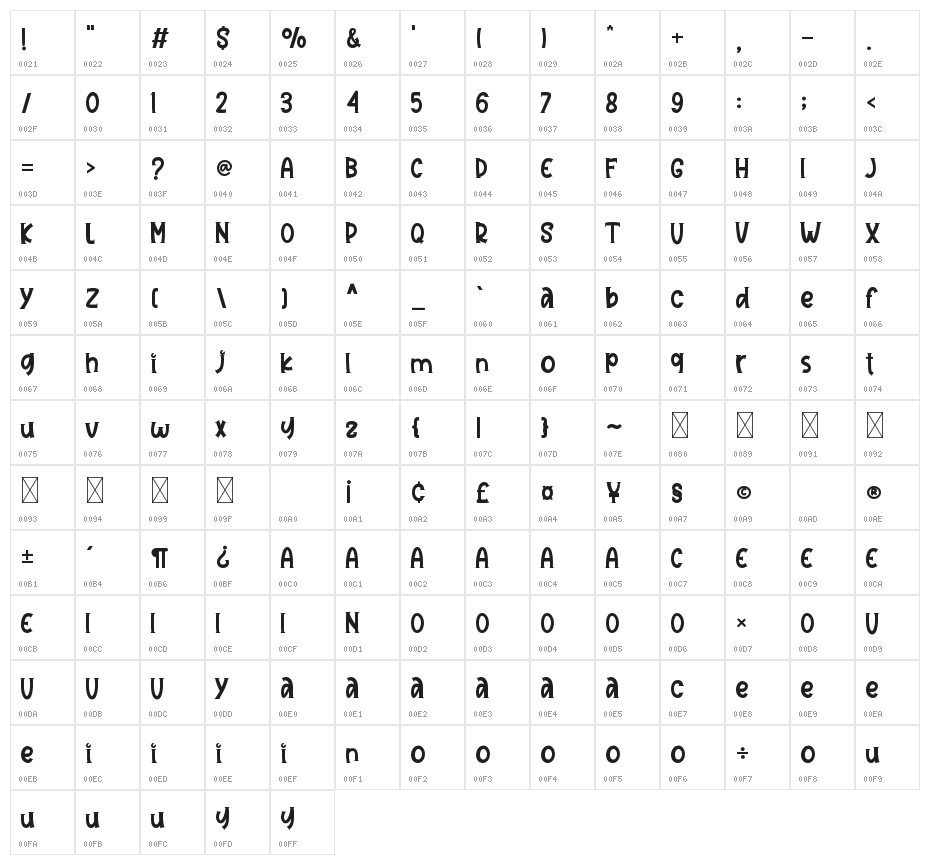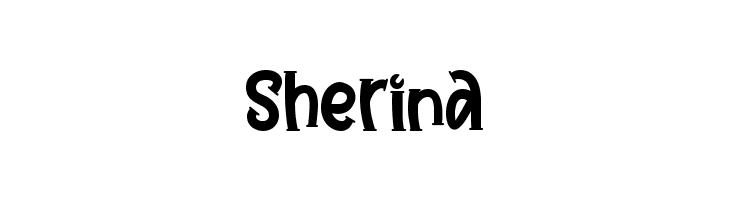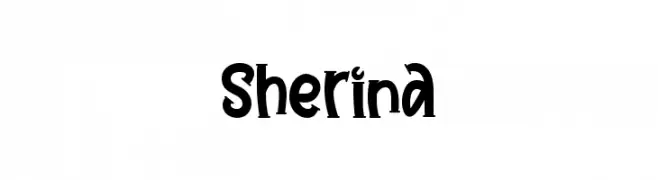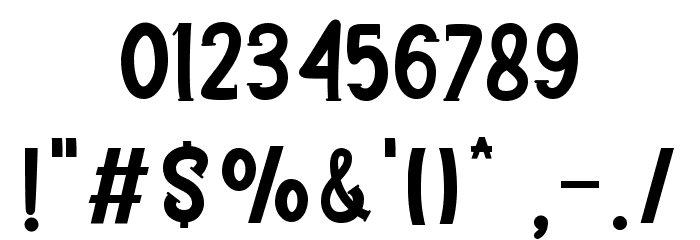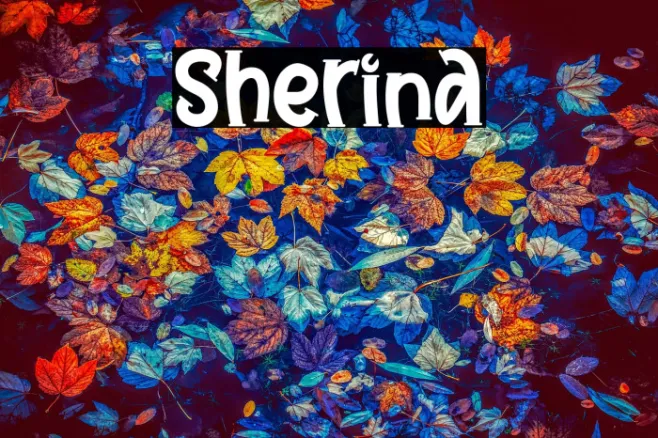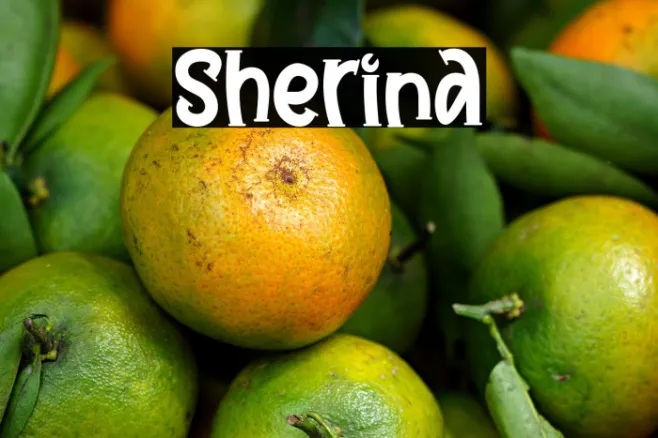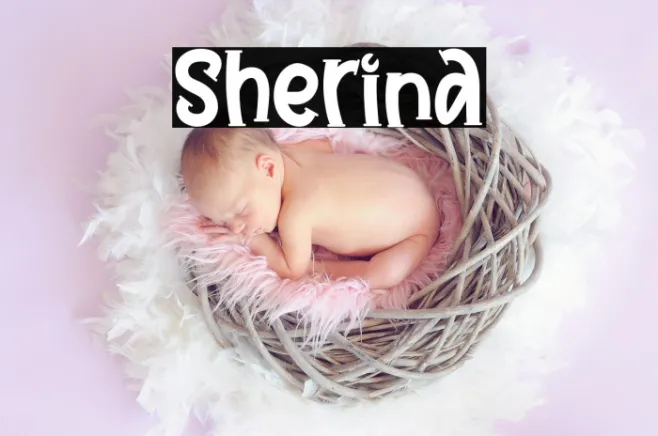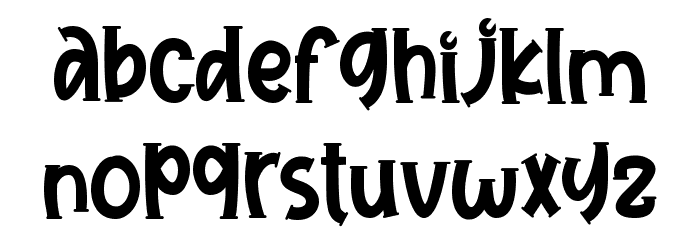
Sherina Font
Sherina Description
A playful and bold decorative font with unique character shapes and a whimsical style.
| Proposed Projects | Children's books, playful branding, posters. |